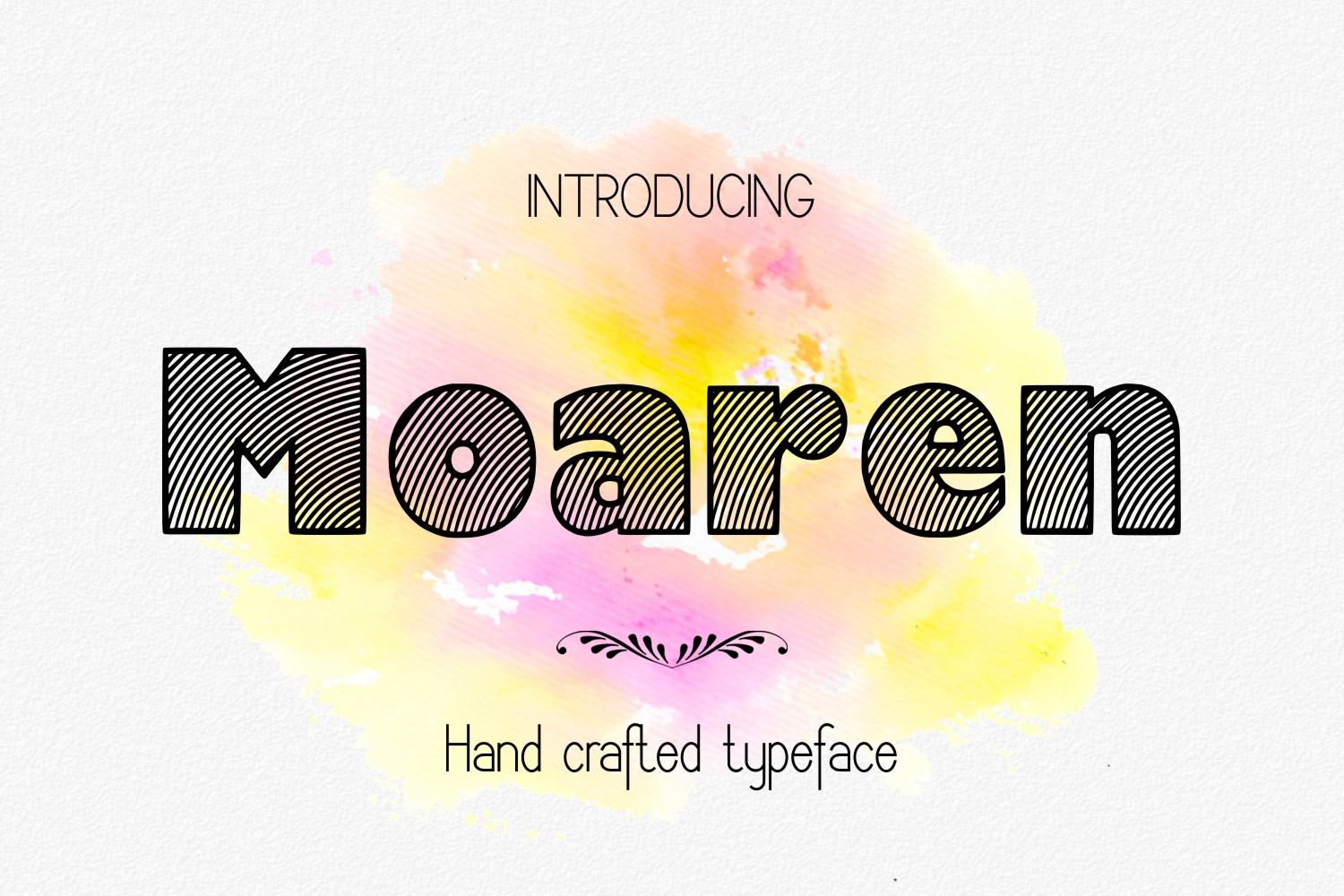
Moaren Font
Introducing Moaren hand crafted decorative font.
Multi purpose use as it has upper cases, lower cases, numbers and punctuations - as pictured above.
Some idea for usage: titling, signage, poster, flyers or t-shirts design, headlines, book covers and more!